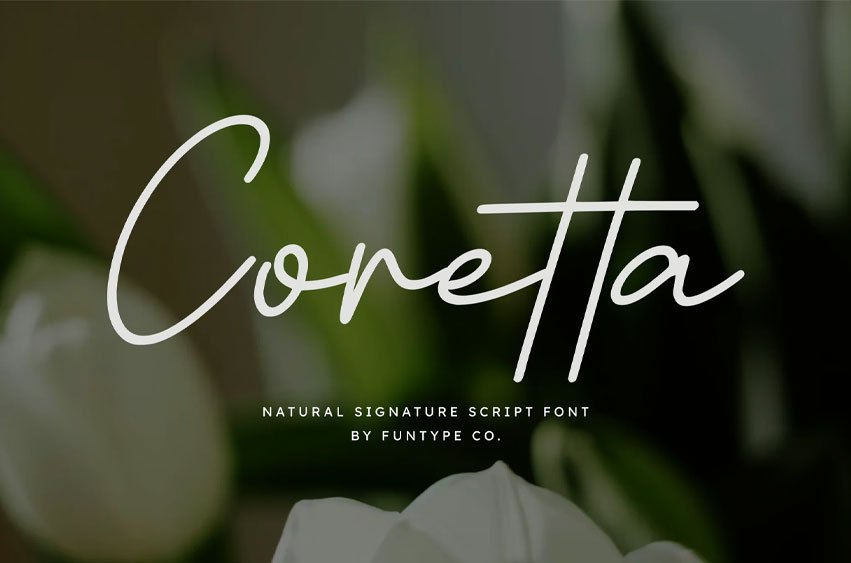
Coretta Font is a sophisticated and natural signature script font, thoughtfully designed to capture the essence of personal charm and contemporary storytelling. With its fluid, organic strokes and clean monoline structure, Coretta offers a professional aesthetic that brings a touch of authentic authority to any creative project.
This font is the ideal choice for designers looking to add a professional yet high-impact touch to their work. Whether you are crafting a striking photography watermark, a sleek lifestyle brand identity, or wedding invitations, Coretta provides a seamless blend of hand-drawn flair and modern power.
- Natural Signature Design: Optimized for a clean, organic, and professional look.
- Authentic Script Flow: Meticulously crafted for superior legibility and a personal, handwritten feel.
- Commanding Presence: Perfect for signatures, logos, and high-end digital displays.
- Professional Aesthetic: High-end finish for modern fashion, beauty, and lifestyle branding.
Best Used For: Photography watermarks, fashion logos, wedding stationery, lifestyle marketing, social media branding, and impactful packaging design.